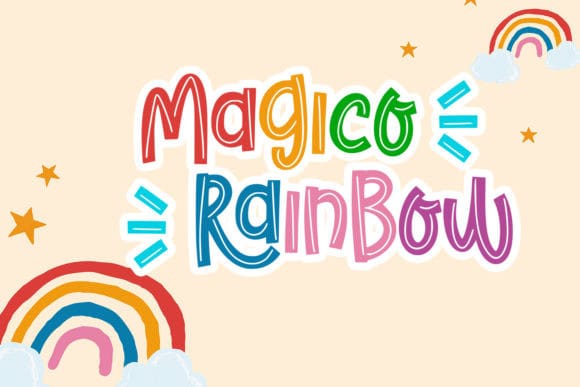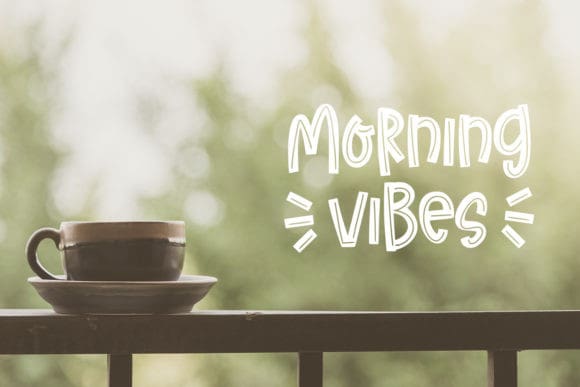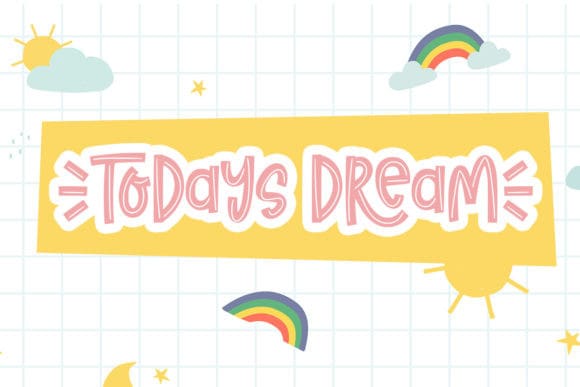
Todays Dream Font
Todays Dream Font is a crafty and chic display font. it is great for lettering, quotes, logo, t-shirt designs, mugs, tote bag designs, cards, banners, social media, and so much more.